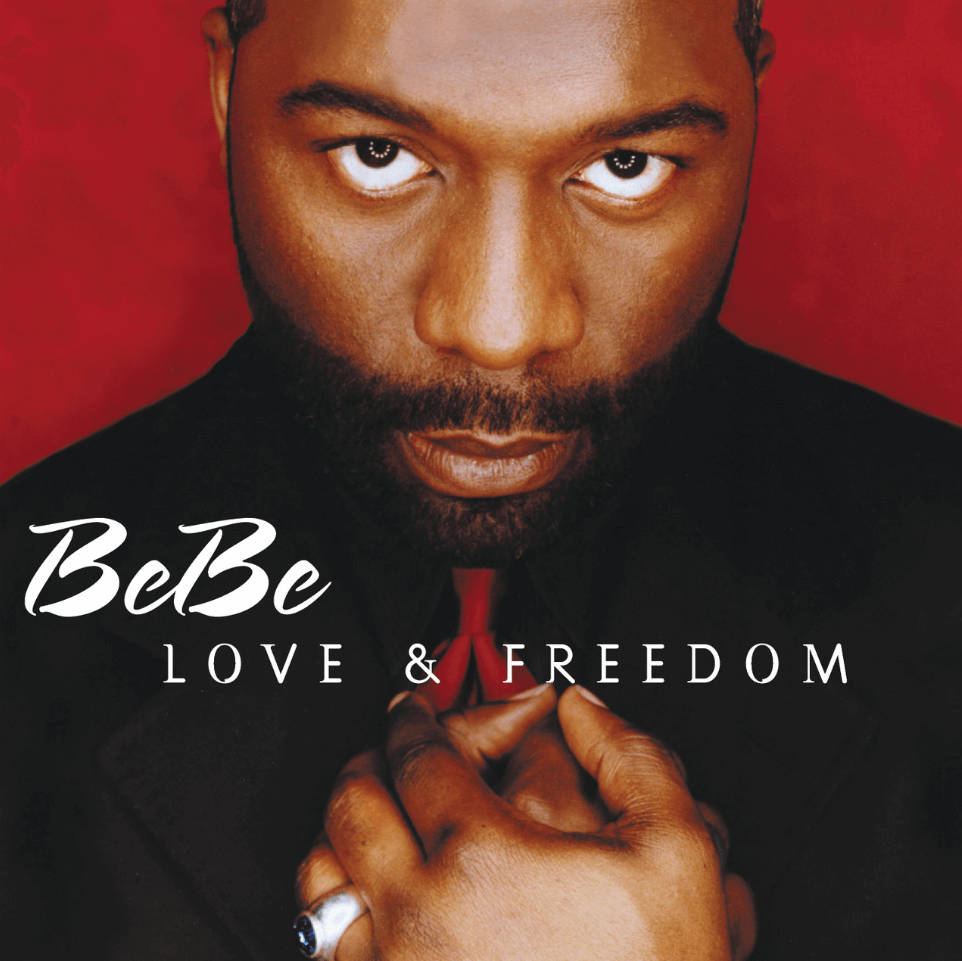
Love And Freedom Font
Fonts in UseLove And Freedom is a gospel album by Benjamin BeBe Winans, released in 2000, featuring songs that explore themes of love, faith, and the pursuit of freedom.
The album cover art's typography is a blend of LetterPerfect's Spring and Emigre's Dead History Roman fonts is a modern and animated script, designed by Garrett Boge, who used his brush lettering as a model.